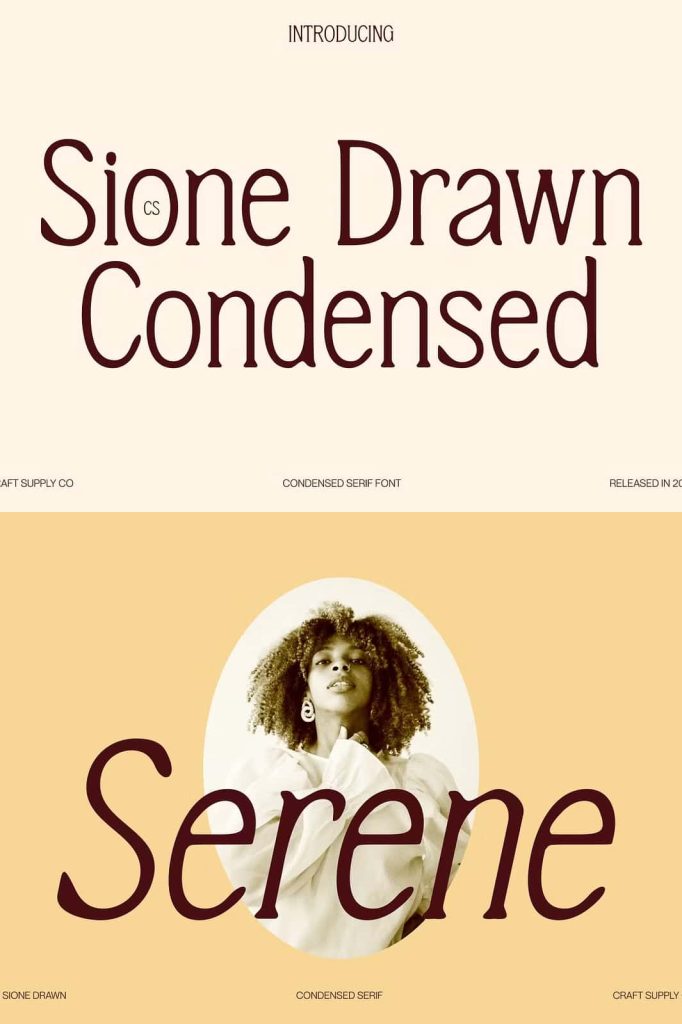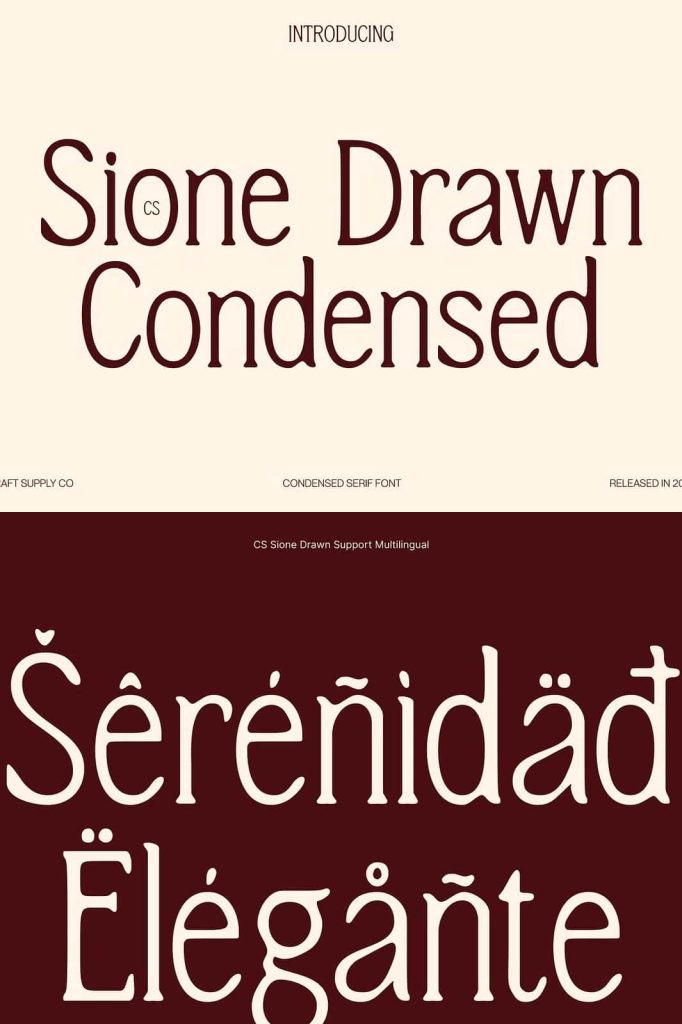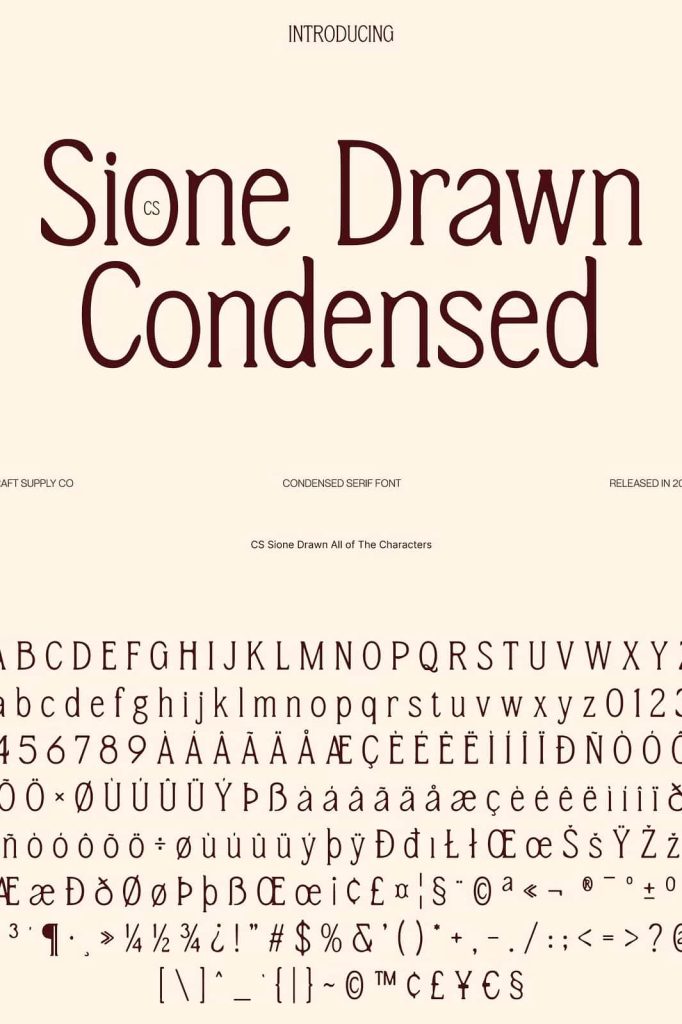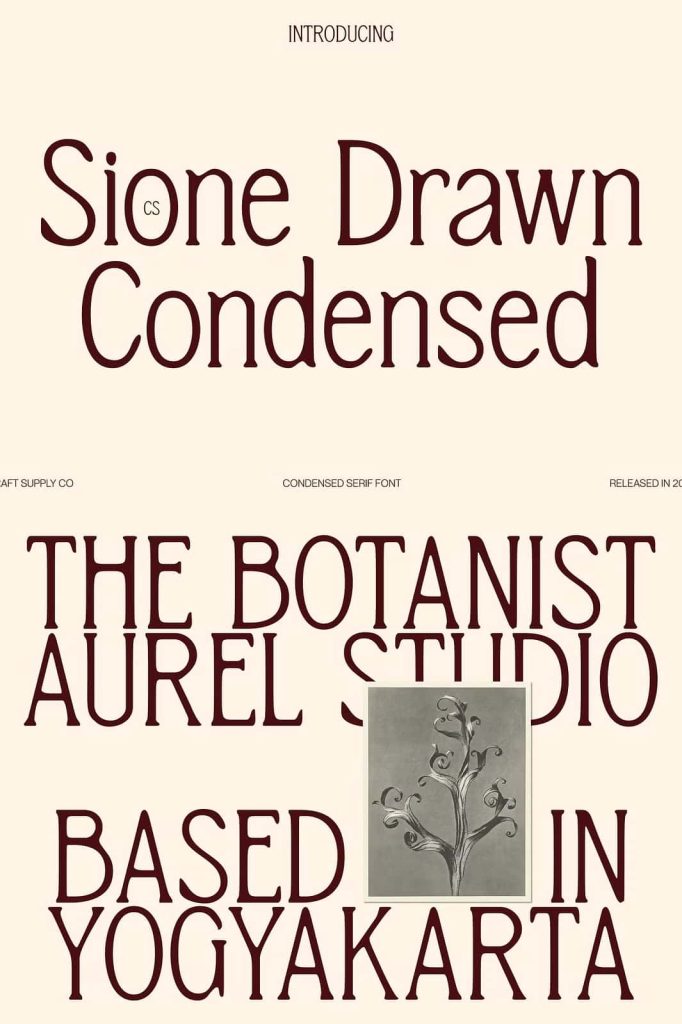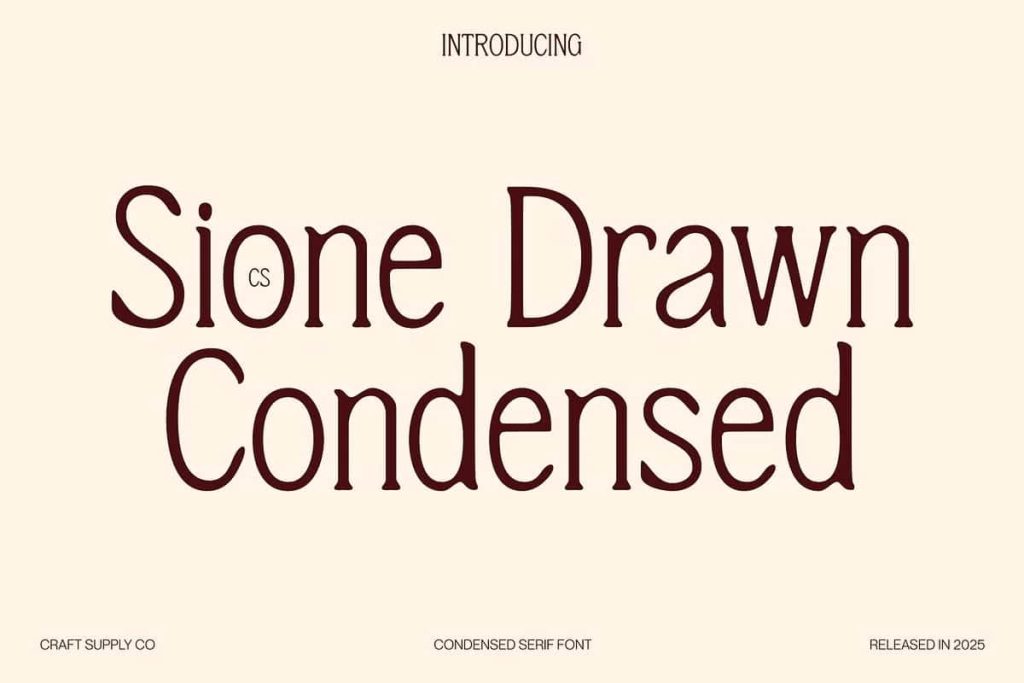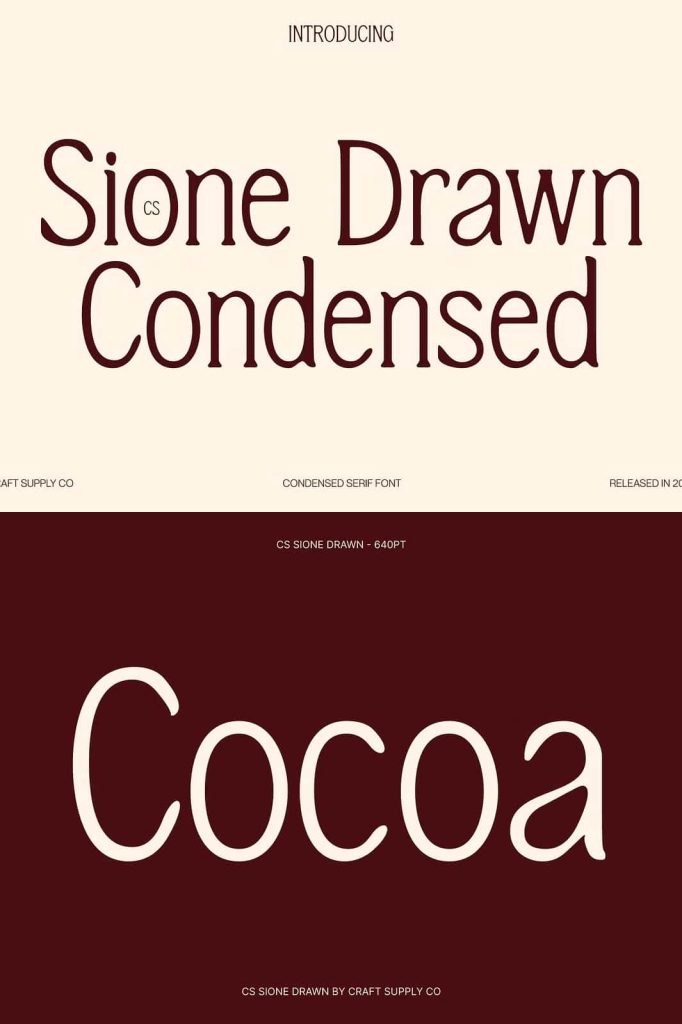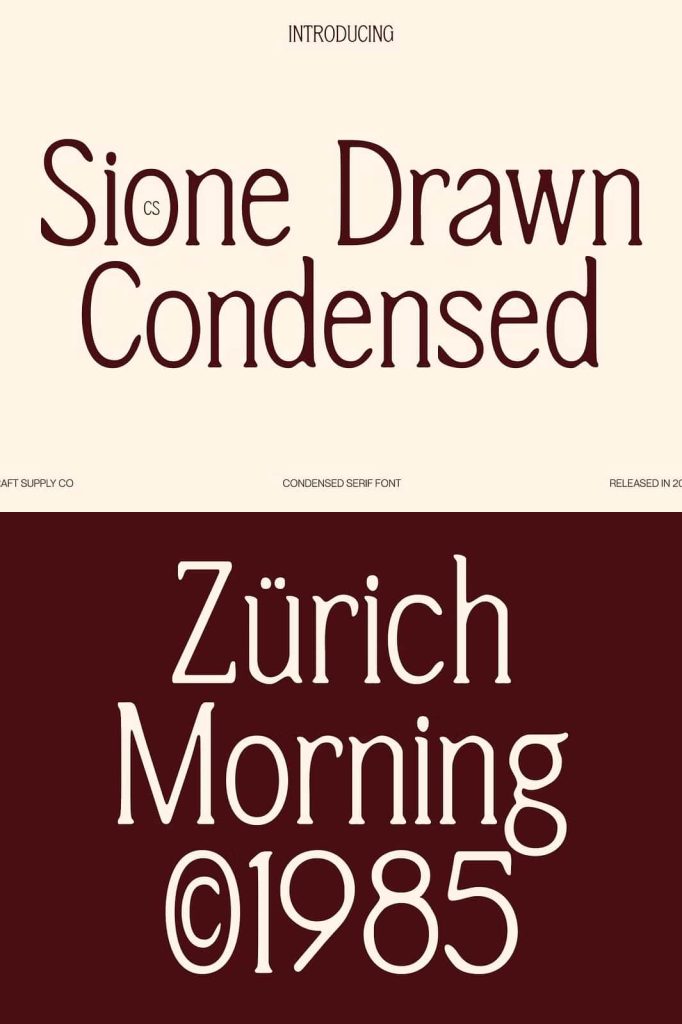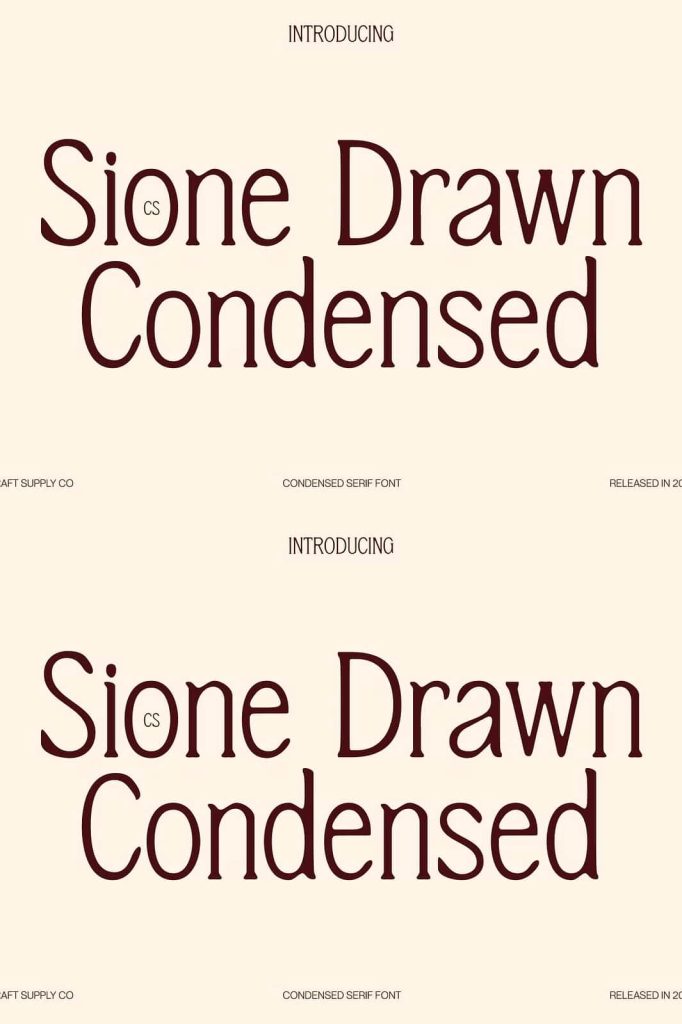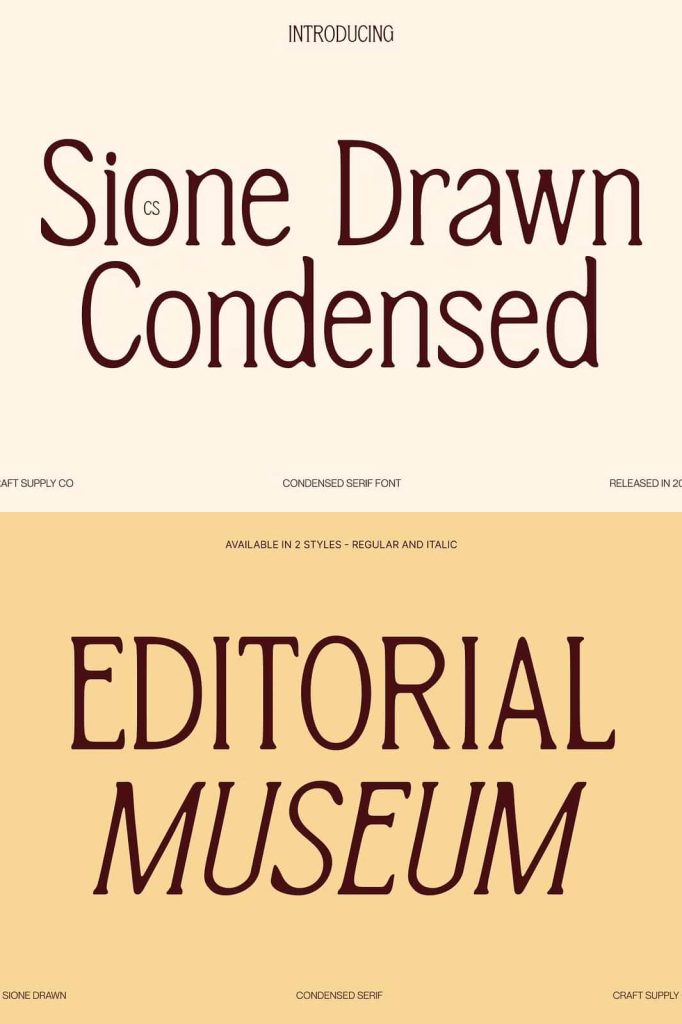
CS Sione Drawn Font
CS Sione Drawn is a refined serif font that combines precision, elegance, and handcrafted character in one distinctive typographic style. Designed for creatives who value sophisticated details and graceful letterforms, this typeface brings a polished presence to every composition. Its refined curves and elongated proportions create a sense of movement, while carefully shaped details give the font an authentic and intentional personality.
With its balance of classic serif structure and expressive handcrafted qualities, CS Sione Drawn offers designers a versatile solution for projects that require sophistication without feeling overly traditional. The typeface can elevate a simple wordmark, strengthen an editorial headline, or add a luxurious character to packaging and promotional materials. Its graceful construction makes it especially effective when typography needs to become an important part of the visual identity.
Refined Curves and Graceful Details
The defining characteristic of CS Sione Drawn comes from its carefully refined curves. Each letterform uses smooth transitions and elegant proportions to create a polished visual rhythm. The elongated details add a subtle sense of sophistication, allowing individual characters to maintain their own personality while working together as a cohesive typographic system.
These extended proportions make the font particularly attractive in larger sizes. Headlines, titles, logos, and short phrases can reveal the fine details of each character, creating a sophisticated appearance that rewards close attention. The graceful curves also introduce a softer quality that keeps the serif structure from appearing too rigid.
Elegant Serif Typography with a Handcrafted Touch
CS Sione Drawn takes the familiar foundation of serif typography and introduces a more personal visual character. Instead of relying solely on traditional forms, the design emphasizes carefully crafted details that create a sense of individuality. This approach allows the font to feel both refined and expressive.
The handcrafted character makes CS Sione Drawn especially useful for designers who want to communicate authenticity alongside luxury. It can help a brand appear established while still maintaining a creative and contemporary identity. The result feels intentional, artistic, and carefully considered rather than generic.
A Sophisticated Choice for Luxury Branding
Luxury brands often depend on typography to communicate quality before customers even interact with a product. CS Sione Drawn provides the elegant visual language needed for premium branding projects. Its graceful serif forms can give logos and brand names a sophisticated appearance while its elongated details create a distinctive signature.
Use CS Sione Drawn for fashion labels, beauty brands, jewelry companies, boutique businesses, interior studios, creative agencies, and other premium brands. Its refined appearance works particularly well with minimalist layouts, generous whitespace, monochrome compositions, and carefully selected visual elements.
Perfect for Editorial Design
CS Sione Drawn also performs beautifully in editorial environments. Its elegant letterforms can transform magazine headlines, feature titles, cover typography, and promotional layouts into sophisticated visual statements. The extended details create a graceful rhythm that works naturally with high-end editorial aesthetics.
Use the font for fashion magazines, lifestyle publications, photography books, creative journals, lookbooks, brochures, and premium catalogs. Large headlines can showcase the character of the typeface, while shorter titles can create an understated and luxurious appearance. Designers can also combine CS Sione Drawn with a clean sans-serif typeface to establish a clear hierarchy between display and supporting text.
Make Logos More Distinctive
A strong logo needs to communicate personality through simple and memorable forms. CS Sione Drawn gives designers an elegant foundation for creating distinctive wordmarks and typographic logos. Its refined curves and elongated details allow even a short brand name to become a sophisticated visual signature.
For logo design, experiment with spacing, scale, and alignment to highlight the graceful structure of the characters. A minimalist approach can emphasize the font’s polished qualities, while carefully selected graphic elements can reinforce its handcrafted personality. The result can feel luxurious without relying on excessive decoration.
Ideal for Fashion and Beauty Projects
The sophisticated character of CS Sione Drawn makes it a natural choice for fashion and beauty design. Its refined appearance complements elegant photography, editorial compositions, product imagery, and premium packaging. Use it for clothing labels, perfume packaging, cosmetic branding, fashion campaigns, beauty advertisements, and seasonal collections.